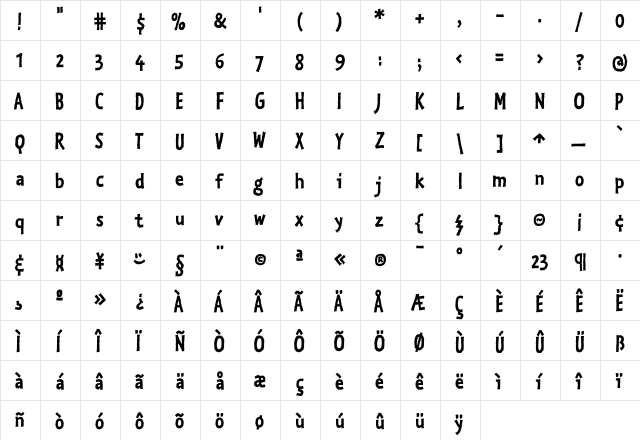
Kosmik-BoldThree Regular
Design Context for Kosmik-BoldThree Typeface
Kosmik-BoldThree takes a measured approach to typography — its balanced proportions and neutral character make it a reliable workhorse for both digital and print work. The heavy weight commands attention and anchors typographic hierarchies.